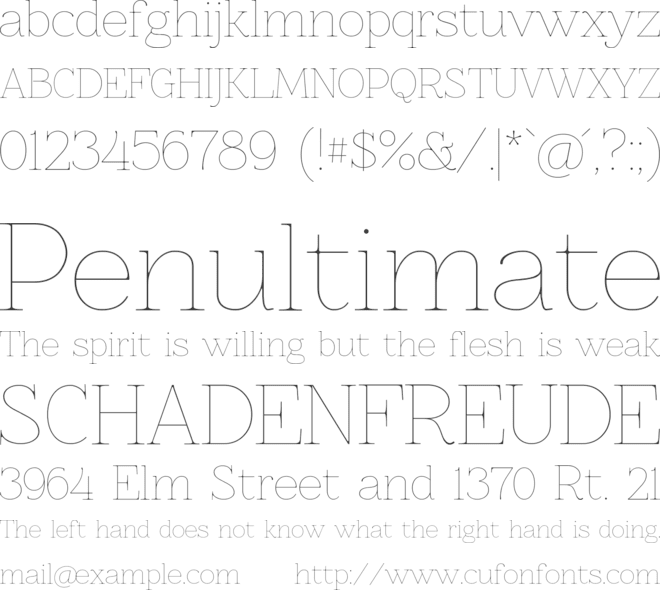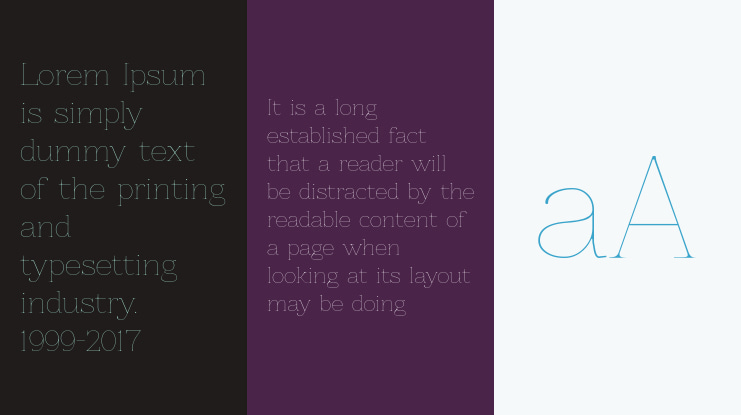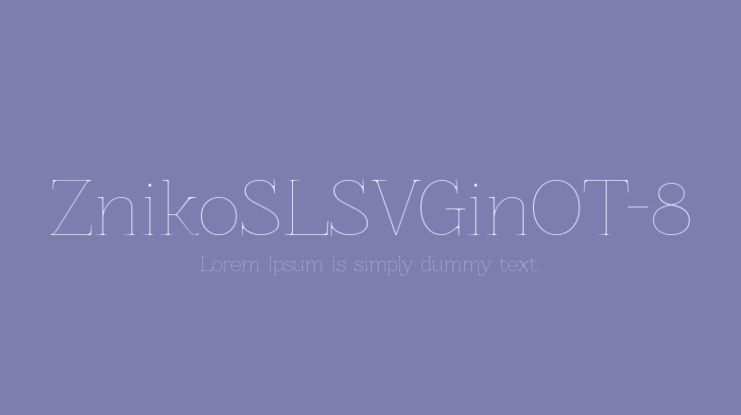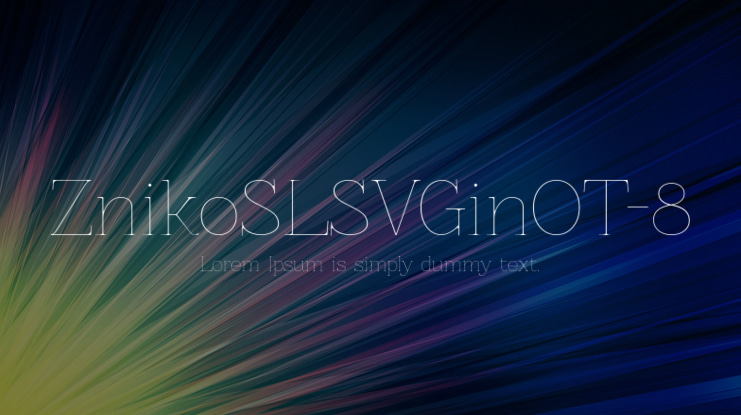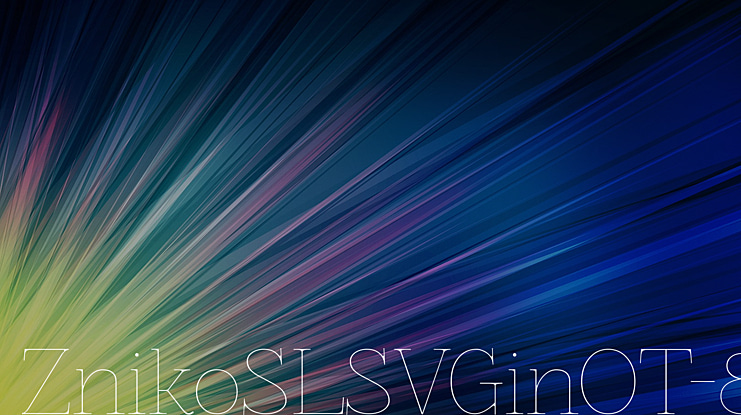
ZnikoSLSVGinOT-8 Font
ZnikoSL-​SVGinOT is Sin­gle­Line font in new Open­TypeSVG format.
Open­TypeSVG color font for­mat is pro­posal for multi-​color, vec­tor fonts, and has been imple­mented in Mozilla Fire­fox (v. >= 26), Microsoft Edge (v. >= 38.14393), Adobe Illus­tra­tor CC 2018 and Photo­shop CC 2017.